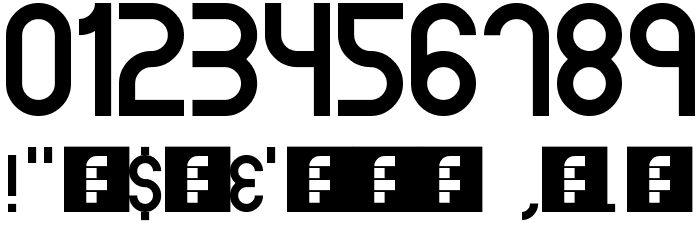
Blueberry Pie Regular Font
This font exhibits a bold and geometric style with clean, straight lines and a modern aesthetic. The characters are uniformly structured, providing a sense of balance and symmetry. The uppercase letters are particularly striking, with a consistent height and width that contribute to a cohesive look. The lowercase letters maintain the same geometric precision, ensuring readability and visual appeal. Numbers are crafted with the same attention to detail, making them easily distinguishable. Special characters are designed to complement the overall style, adding versatility to the font's use. The font's boldness and clarity make it suitable for a variety of design applications.
A bold, geometric font with a modern and balanced design.
- Proposed Projects: Ideal for branding, advertising, posters, and digital media where a strong visual impact is desired.